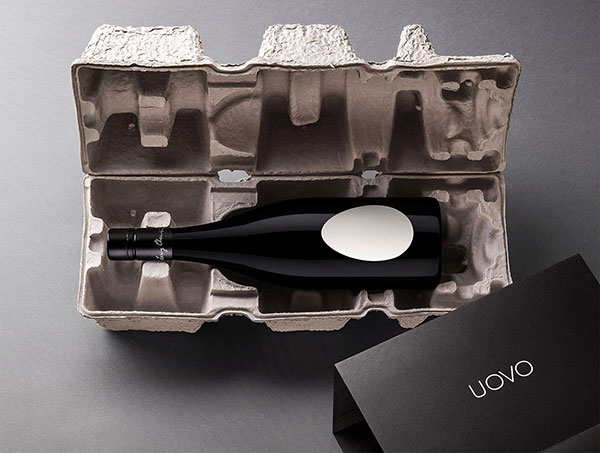
Uovo logo and packaging by Denomination
A slightly different feature, added for the symbolism depicted by the label rather than for the Uovo wordmark. That said, when a shopper sees the bottle, the egg-shaped label could be considered a form of logo (a visual emblem, at least).
“When winemaker Larry Cherubino had three giant concrete ‘egg’ tanks delivered to his winery, he knew the packaging [and Uovo logo] had to reflect this revolutionary way of maturing wine. Wine made within the ovoid shape is purer than anything achieved traditionally, as the lees [the sediment of wine in the barrel] are continuously forced upward by a naturally occurring vortex, creating wines with a purity and texture that is unsurpassed. Named ‘Uovo’ (egg in Italian) Cherubino wanted the packaging to reflect the unique hand-made winemaking process and delicate nature of the wines.”
“The strikingly simple label, executed in a warm white eggshell textured paper, immediately conveys the brand name as well as the highly unusual form of the wine tank. To reflect the pure, stripped-back nature of the winemaking, the label is devoid of graphics, letting the shape alone become an intriguing and unique identifier.”
A nice little touch to place the LC monogram within an egg, rather than the original confines seen on the Larry Cherubino website.
On the design execution, if I was to change one thing it’d be the Uovo wordmark. I’d add marginally more width to the U as I think it’d create more visual balance with the OVO characters, and I’d reduce the spacing between the U and O to even-out the kerning.
Each bottle is packaged in its own “egg” box — a moulded pulp wine mailer customised with an outer sleeve.
The production method, the brand name, the label shape, the palette, the packaging. Put it all together, that’s memorable.